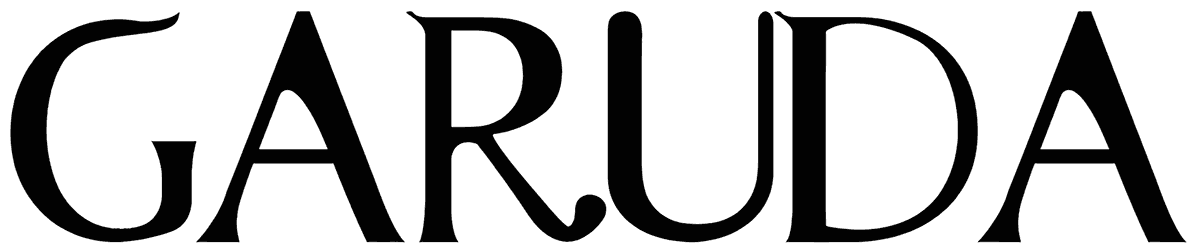
Garuda Font
Success in designing graphic content is what comes after choosing an appropriate font, such as Garuda, for creating business cards, branding, logos, presentations, or stationery.
This all-caps retro font carries a feeling of momentum, confidence, respect, and formality, thus convincing the audience to pay attention to your work would be really easy. Considering all its numerous benefits, the lack of numbers will not be problematic.
For any magical or Artistic Application.